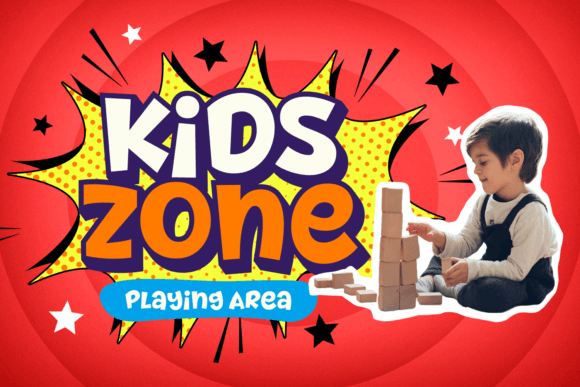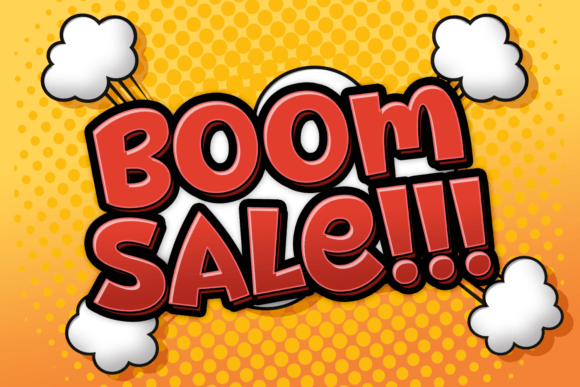
Comic Elite Font
Comic Elite is a lively and playful children’s comic font, designed to evoke the fun and expressive style of classic comic book lettering. With its lighthearted and energetic design, the font is perfect for use in children’s content, from comic strips to storybooks and fun educational materials. This lovely display font is perfect for comic strips, children’s books, and other narrative-driven designs that require clear and fun typography.